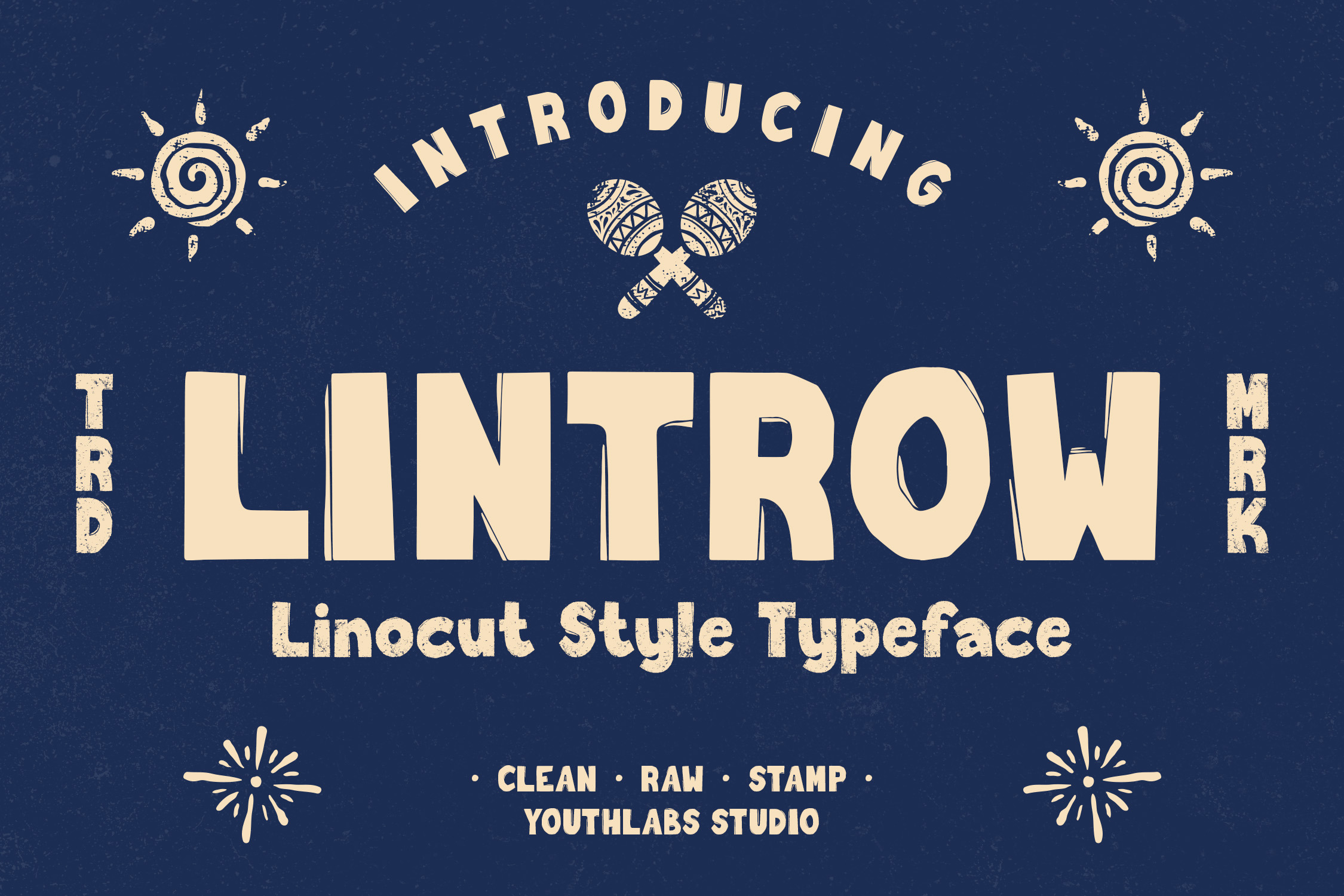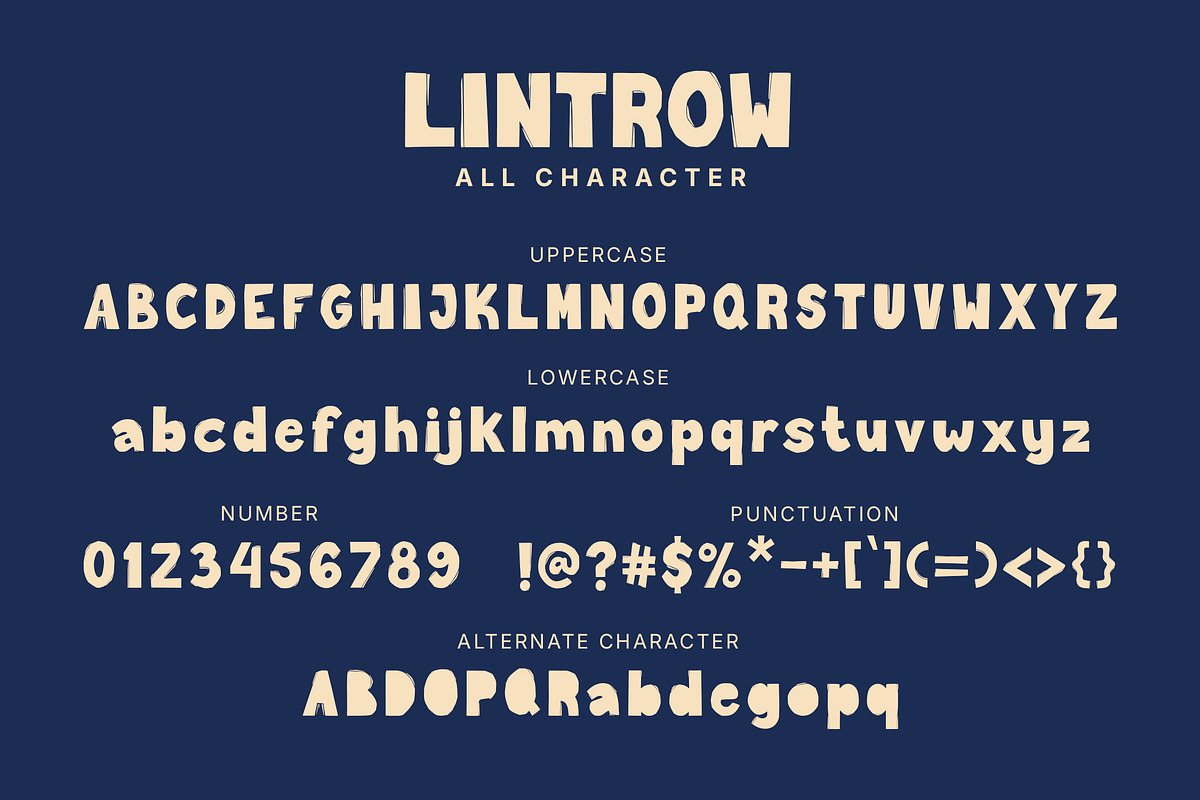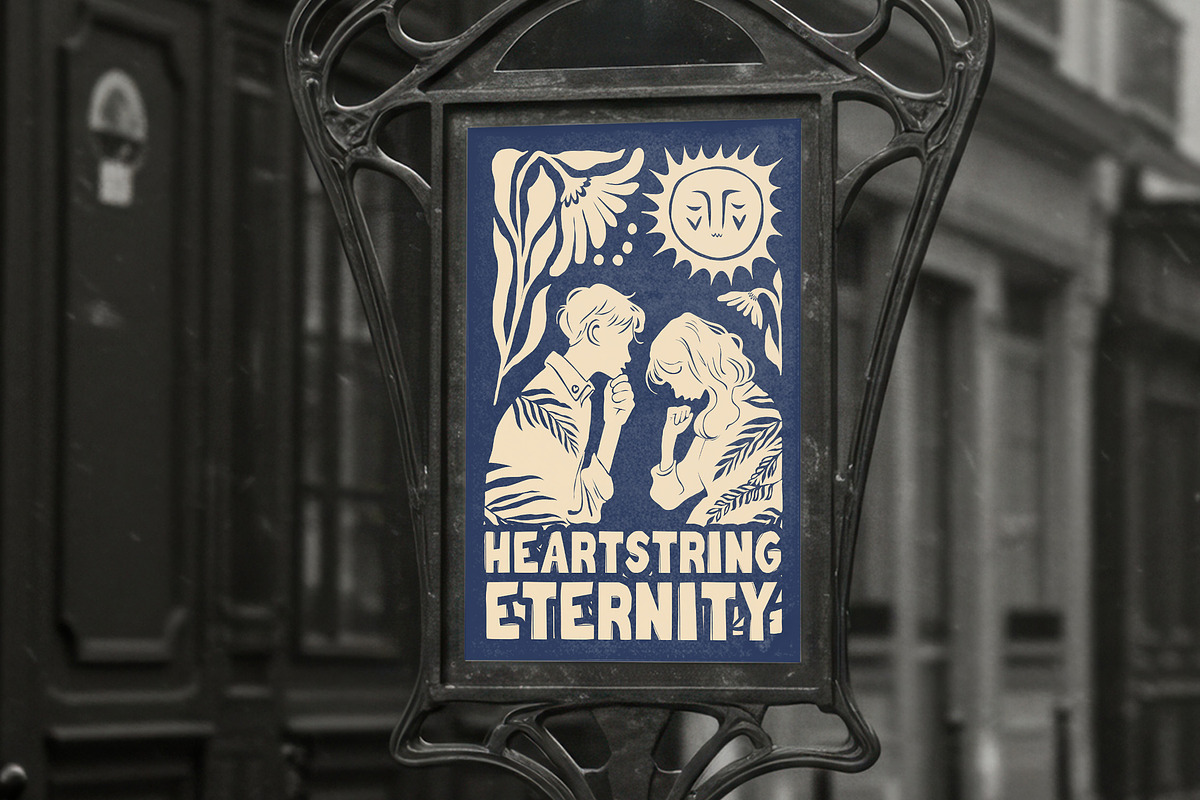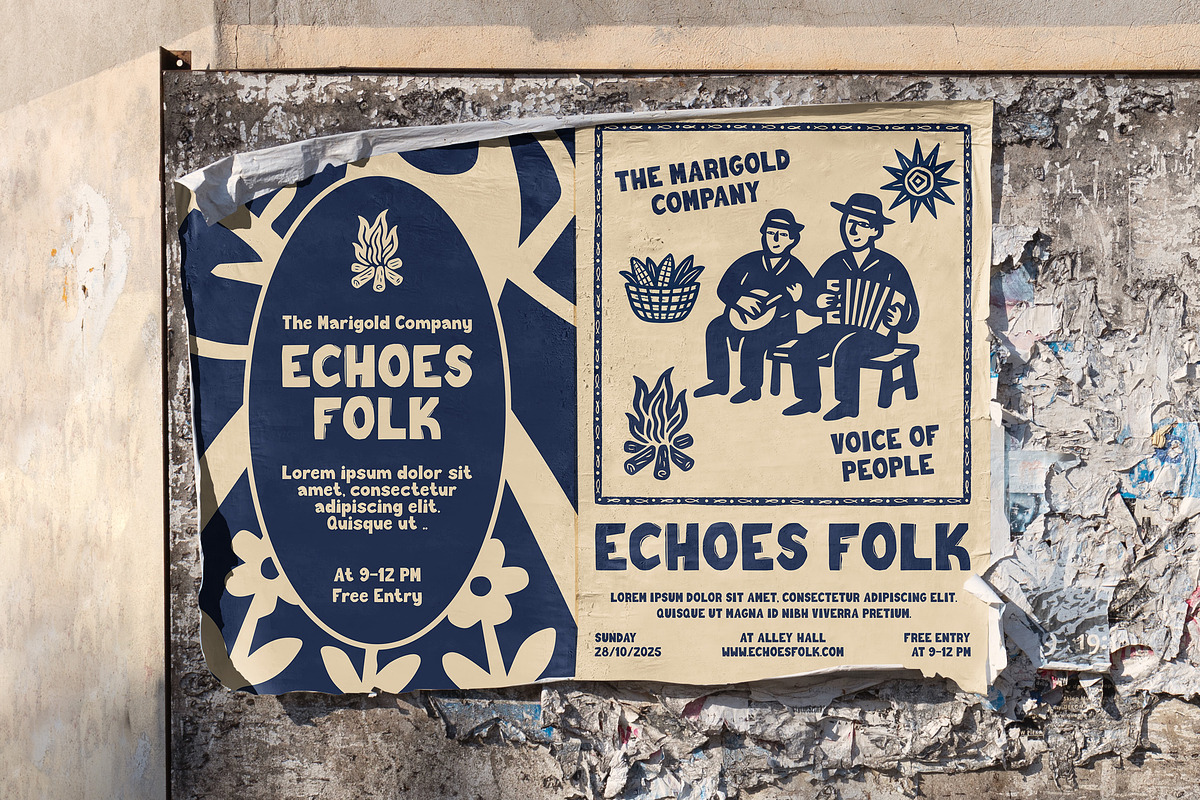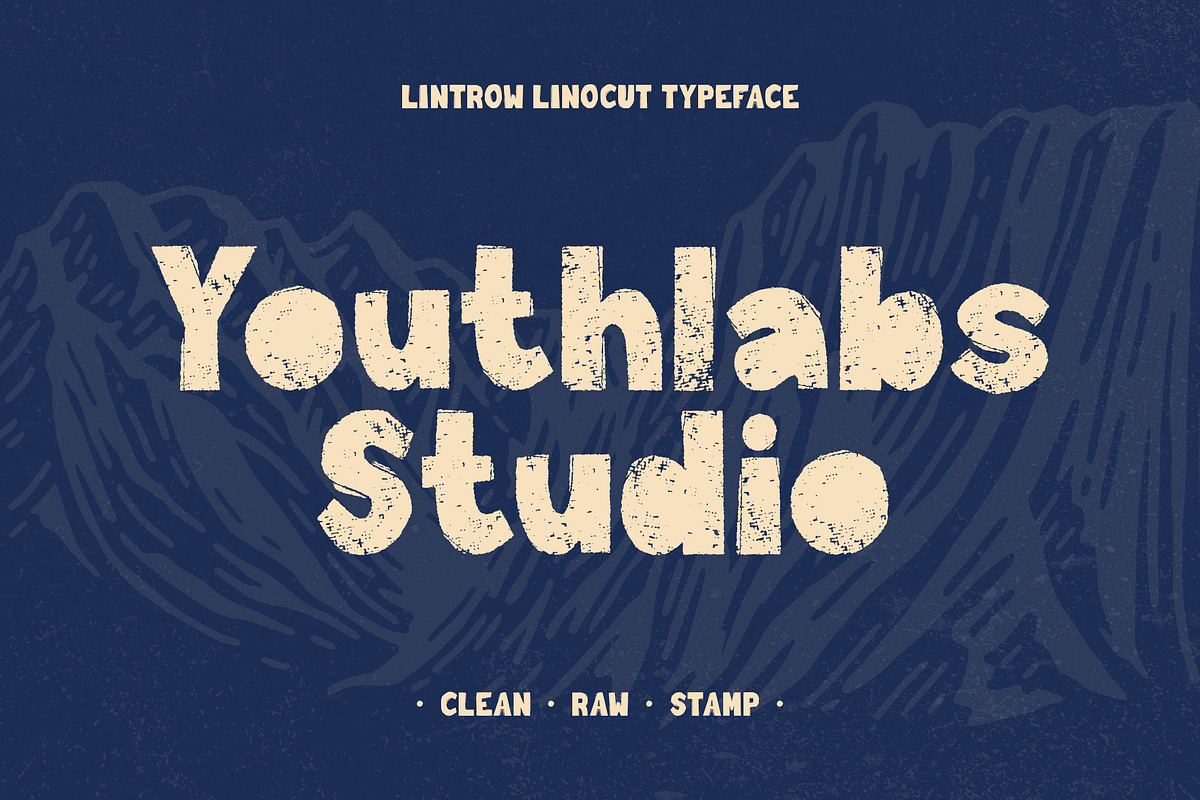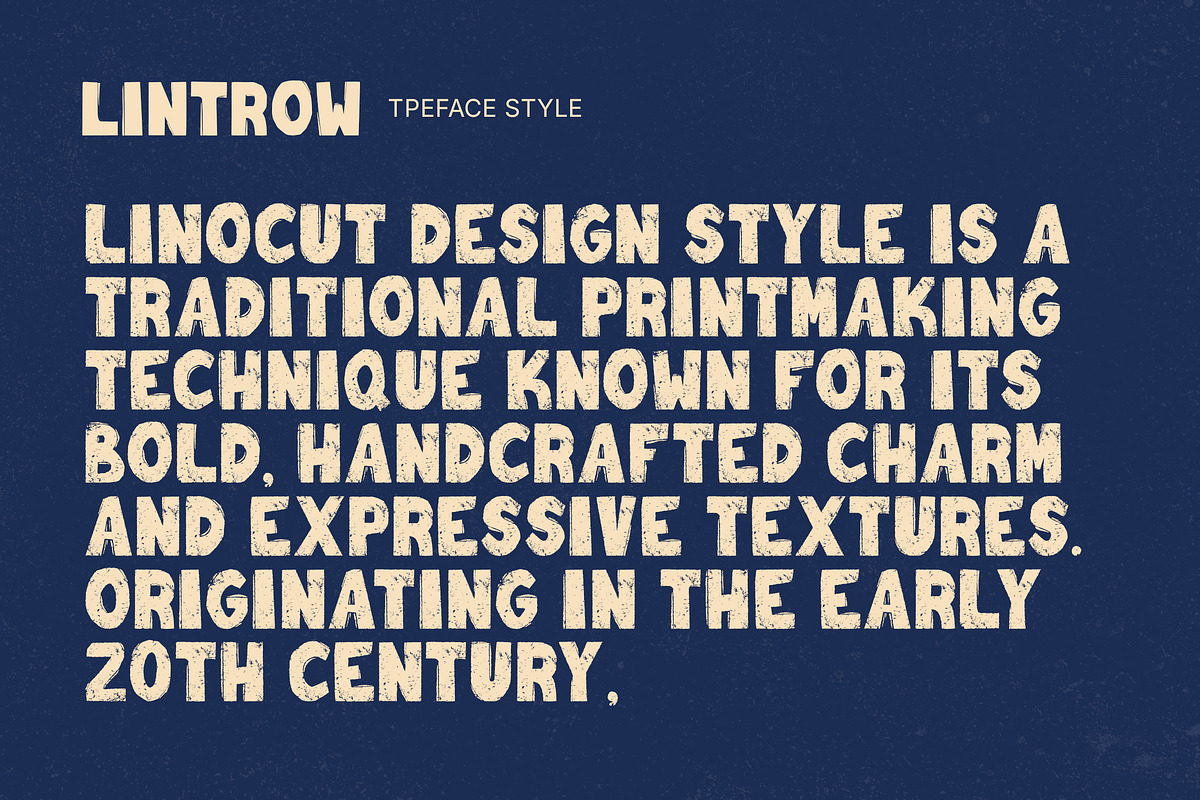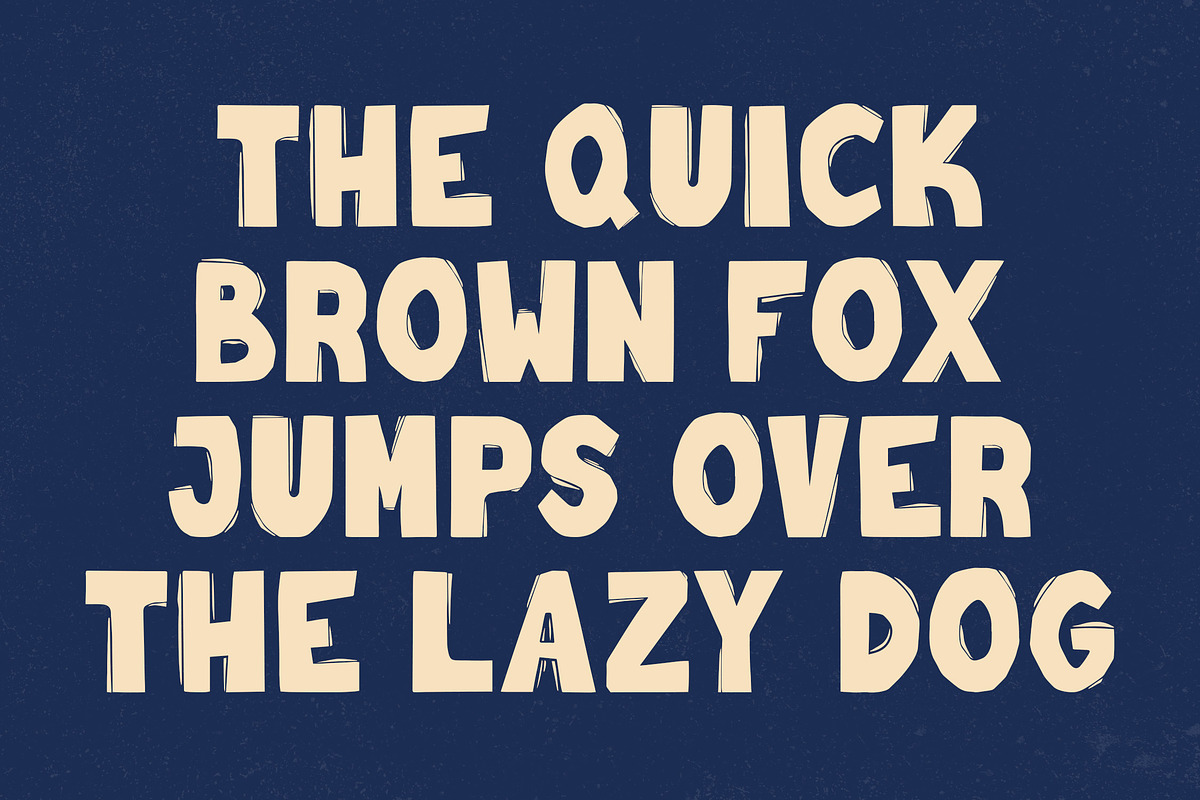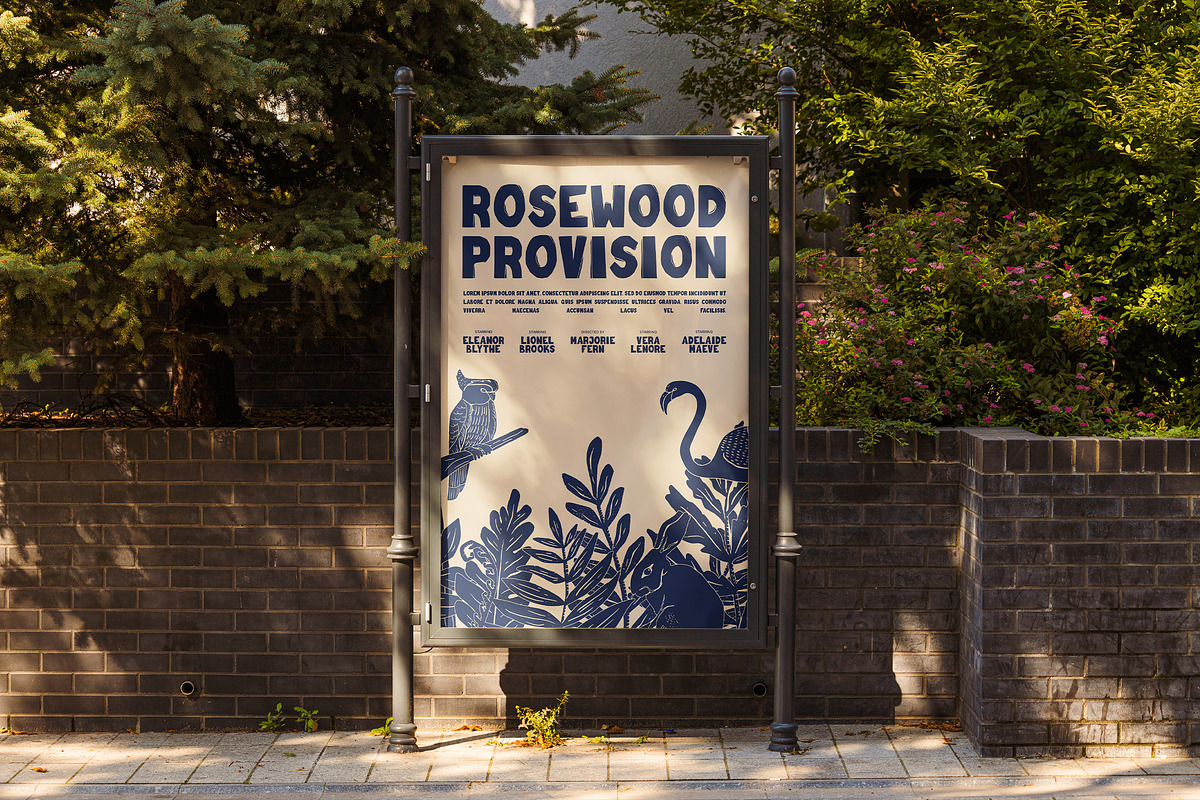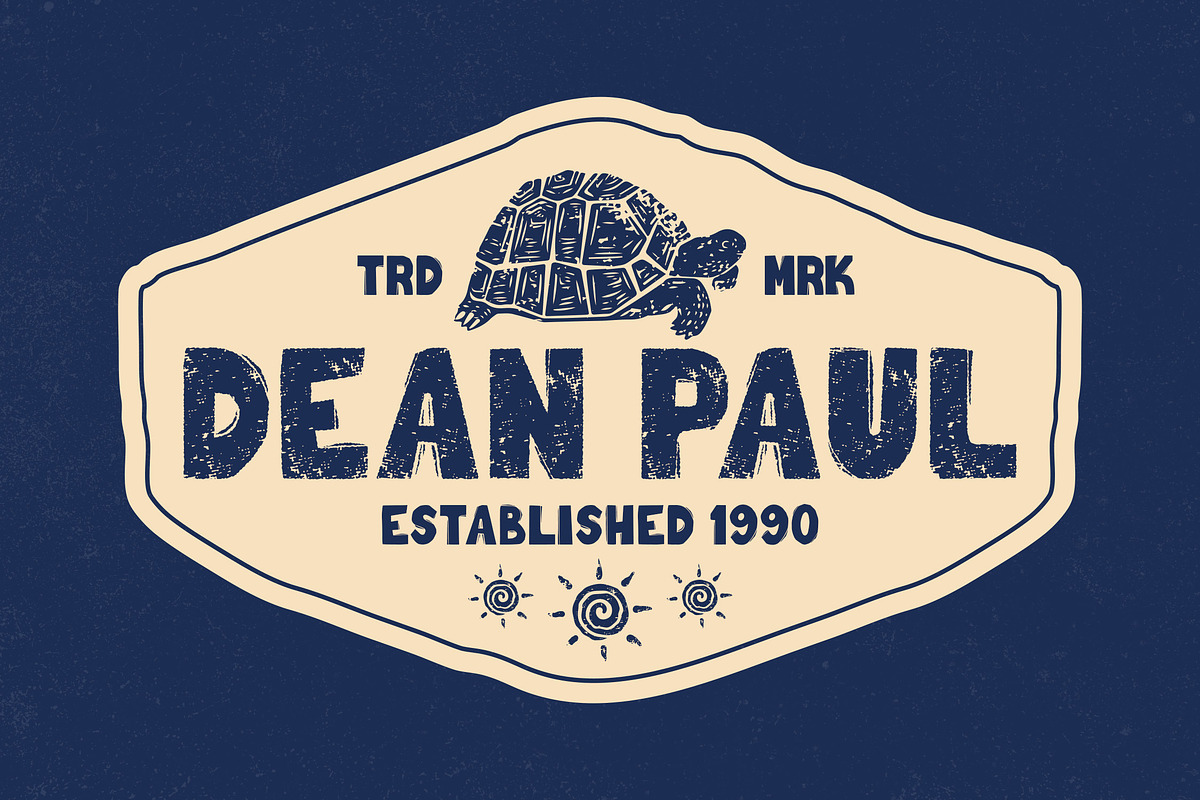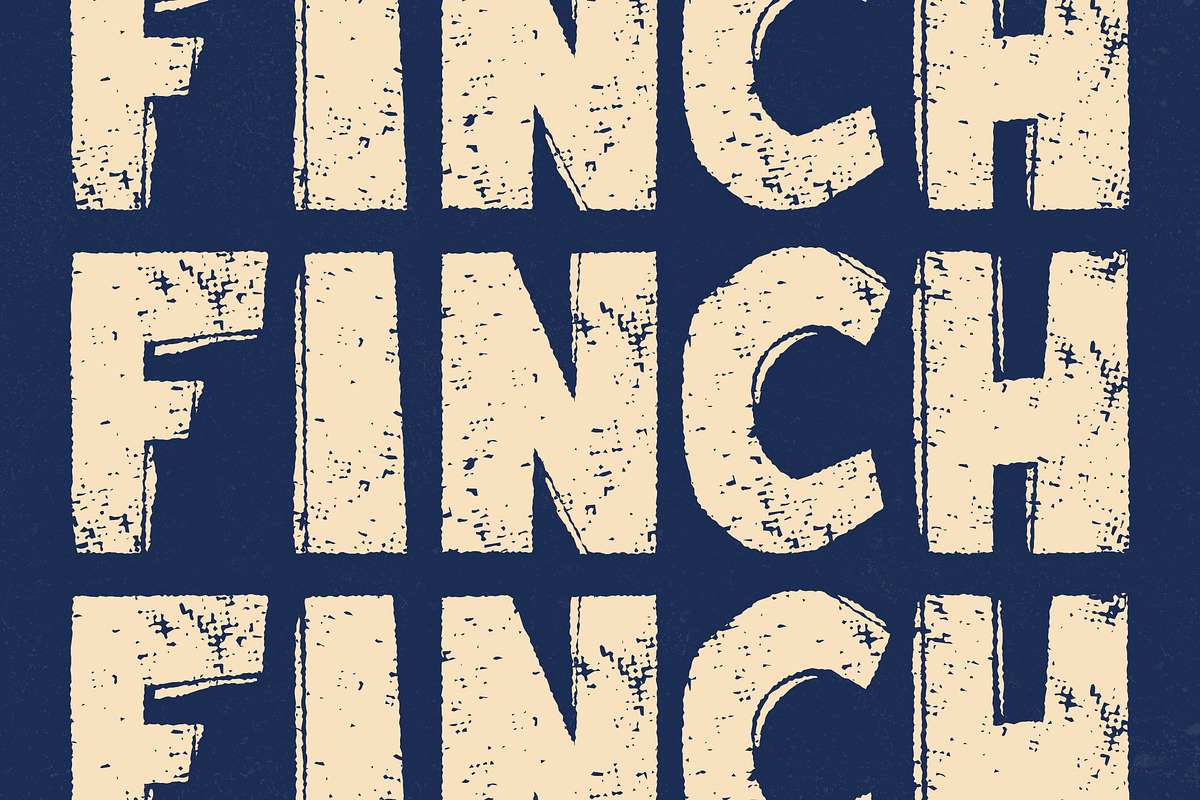
Lintrow - Linocut Style Typeface
Lintrow is a bold display typeface inspired by traditional lino-cut printmaking. With its raw edges, stamped textures, and handcrafted charm, this font captures an artisanal, vintage aesthetic perfect for posters, packaging, and branding projects that need a touch of authenticity. Its clean yet rugged style makes it versatile for both modern and retro themes, adding personality and character to every design.
What's The Feature ?
- Alternate Character
- Opentype Feature